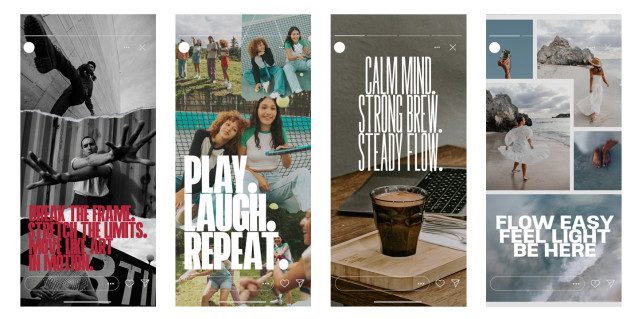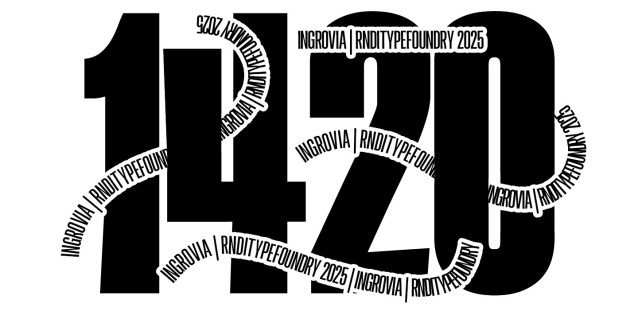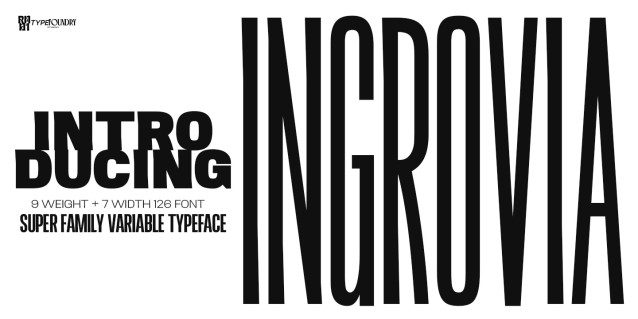
Ingrovia Font Family
Ingrovia Font Family is a sophisticated sans serif font that effortlessly merges classic elegance with modern sensibilities. Its Grotesk style offers a clean and versatile aesthetic, making it an ideal choice for a variety of applications, from eye-catching posters and dynamic billboards to engaging book covers and impactful advertisements. The variable nature of Ingrovia allows for a customizable design experience, enabling you to tailor its weight and style to perfectly fit your project’s needs.